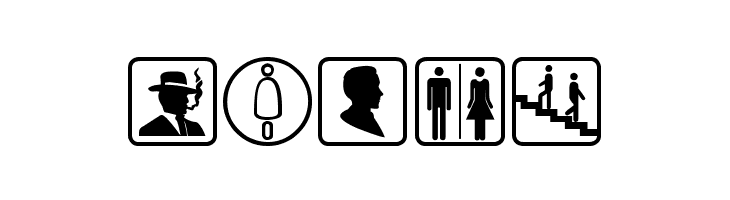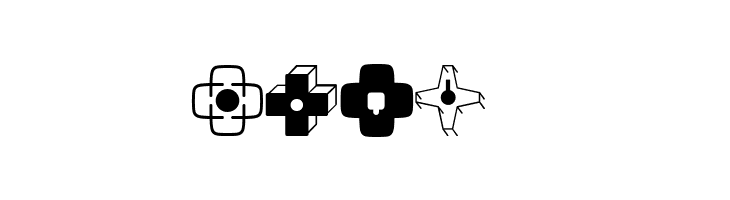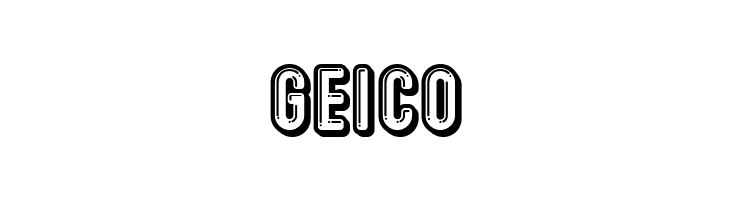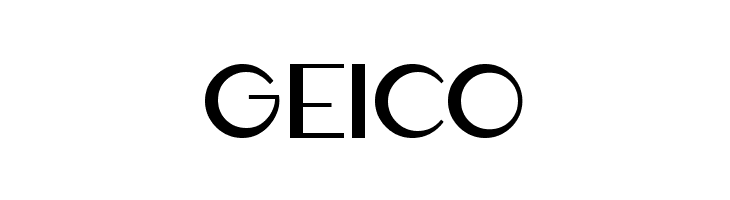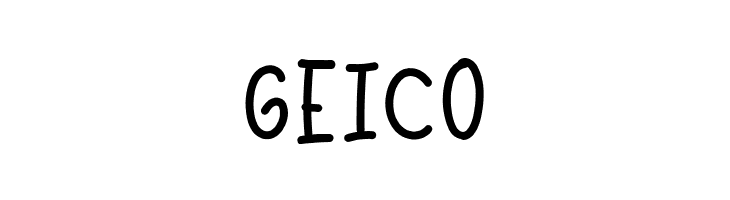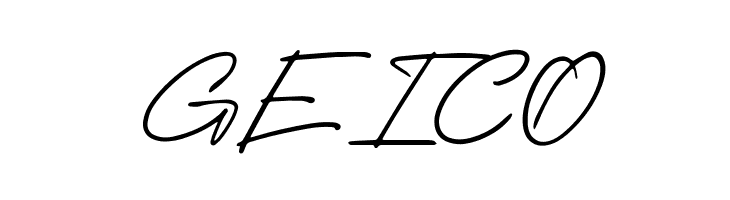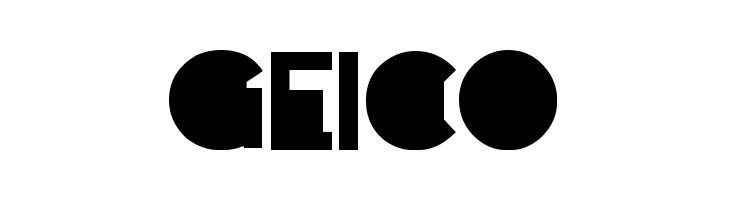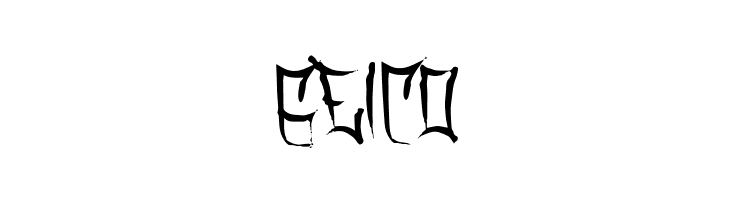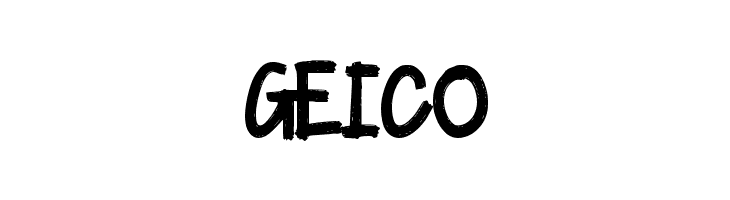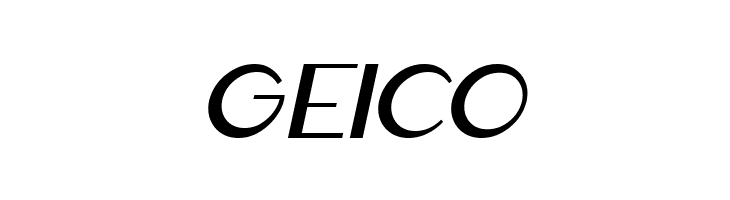
A bold, graffiti-inspired font with dynamic, brush-like strokes.
A distressed, grunge-style font with a rough, textured appearance.
A modern, geometric font with clean lines and bold characters.
A modern, geometric sans-serif font with clean lines and bold characters.
A sleek, modern italic font with smooth curves and elegant slant.
A playful, handwritten-style font with consistent stroke width and casual appeal.
A dynamic, fluid handwritten script with elegant, sweeping curves.
A fluid, cursive handwritten font with elegant, interconnected letters.
A playful, handwritten font with rounded, irregular letterforms.
A sophisticated, flowing script font with a handwritten style.
A bold, geometric font with a vintage yet modern appeal, perfect for impactful headlines.
A bold, playful font with rounded, thick strokes and a whimsical style.
A bold, hand-drawn font with a playful and energetic style.
A lively and dynamic handwritten font with fluid, cursive strokes.
A bold and expressive brush script font with a hand-painted look.
A bold, decorative font with a double-line effect and rounded edges, perfect for impactful designs.
A bold, decorative font with a three-dimensional effect and strong visual impact.
A decorative pattern of geometric shapes with modern and abstract elements.
A pictogram icon set for wayfinding and signage.
A sleek, geometric font with thin strokes and a modern aesthetic.
A bold, angular, and decorative font with a futuristic style.
A bold, graffiti-inspired font with sharp, angular strokes.
An edgy, graffiti-inspired font with sharp, angular lines and dramatic strokes.
An edgy, graffiti-inspired font with sharp, angular lines and a rebellious style.
A playful, handwritten font with a casual and informal style.
A bold, hand-drawn font with dynamic, angular strokes and an expressive style.
A playful, handwritten-style font with smooth, rounded letterforms.
A bold, playful handwritten font with a casual and friendly vibe.
A modern sans-serif font with clean lines and balanced proportions.